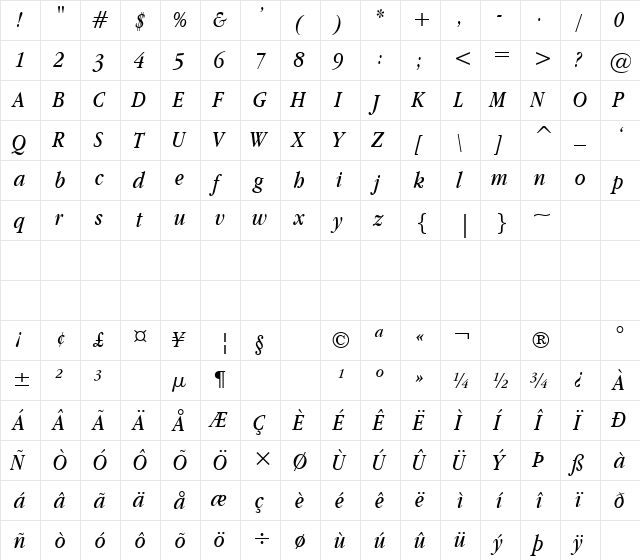
Apple Garamond BT Italic
Design Context for Apple Garamond BT Typeface
Apple Garamond BT offers clean, dependable letterforms without strong stylistic allegiance, making it a practical choice for designers who need flexibility. The dynamic lean of this cut emphasises speed and emphasis in any layout.
Pro Tip: Try Apple Garamond BT for annotation and caption copy alongside an upright companion — the contrast in angle creates a dynamic but ordered typographic system.